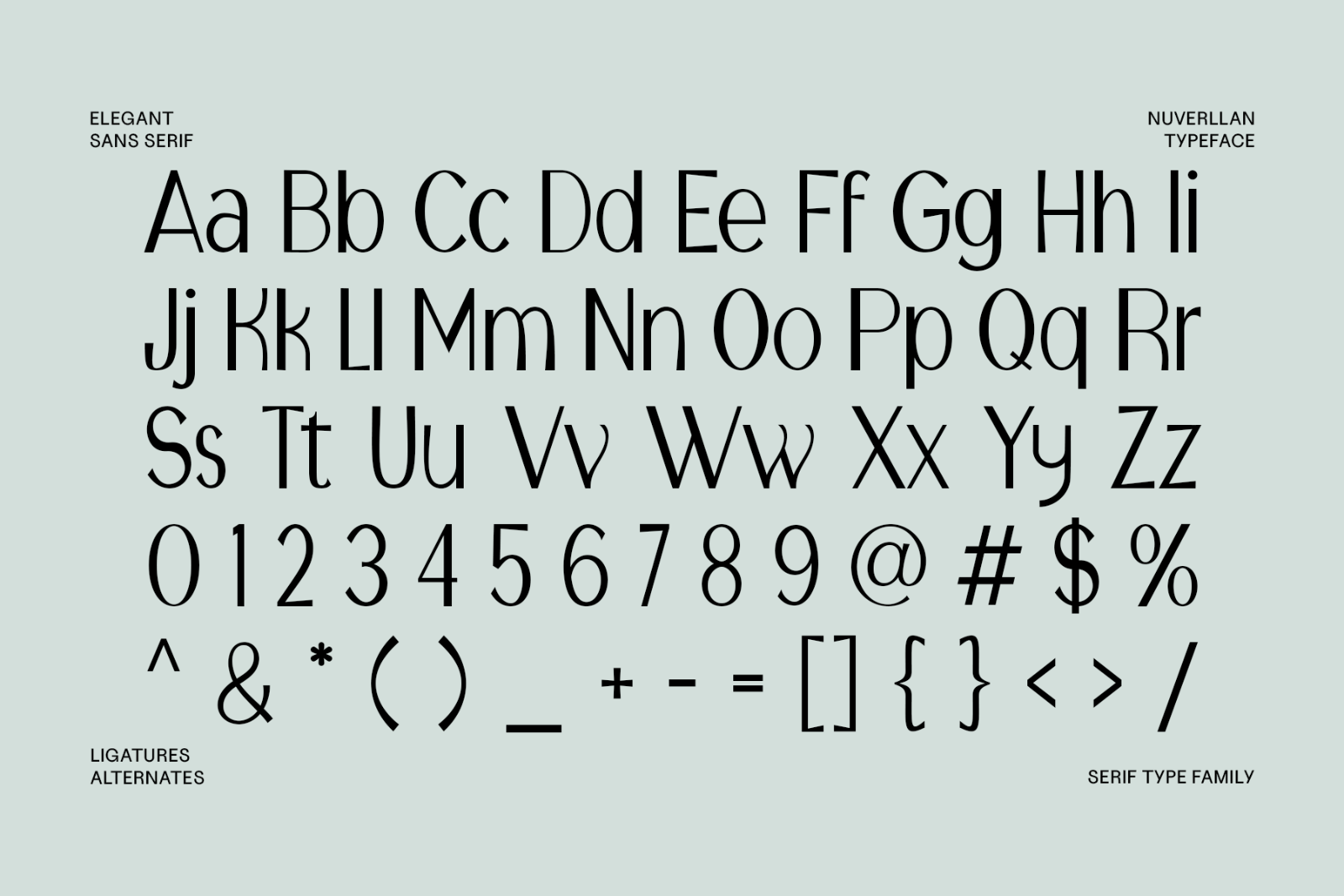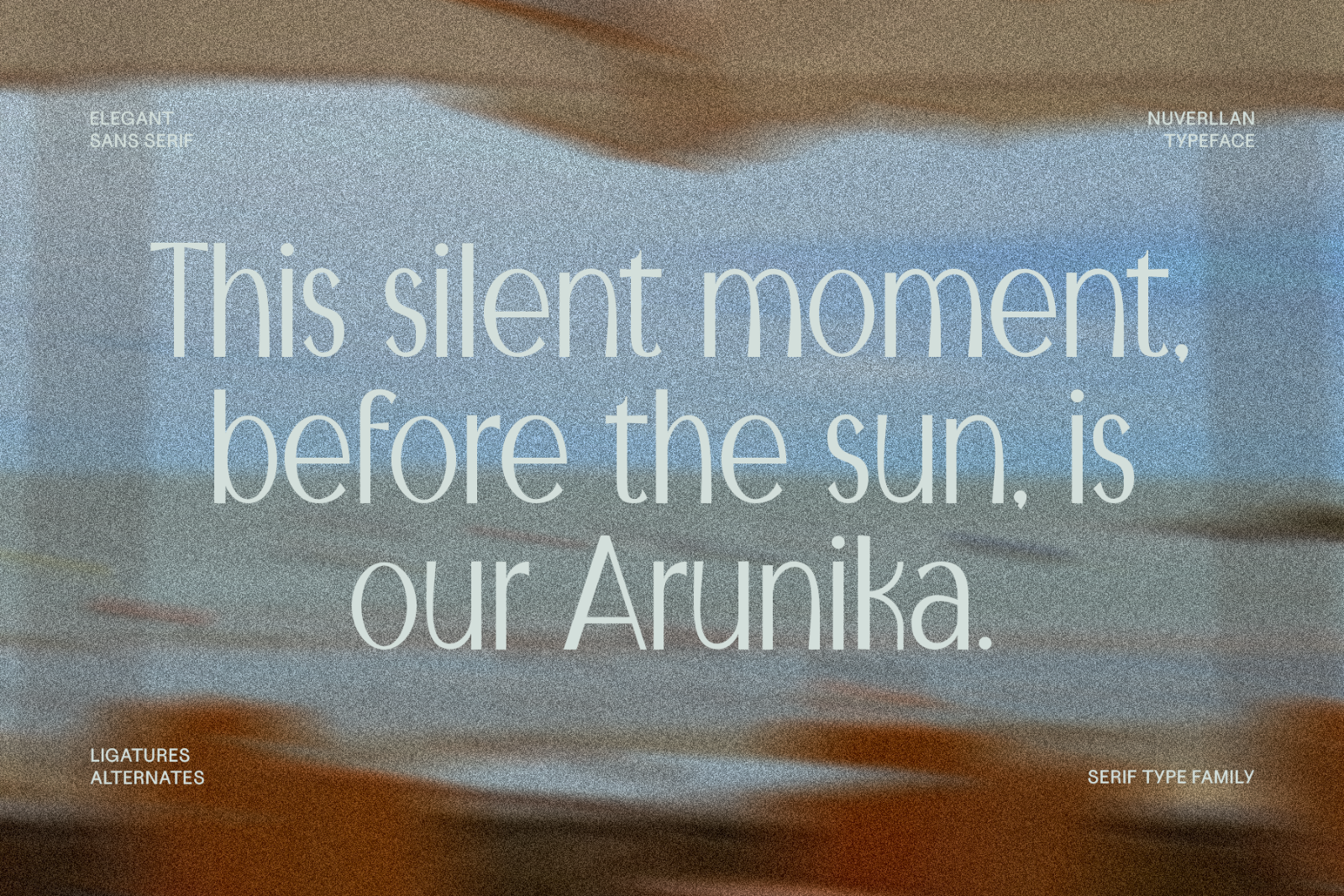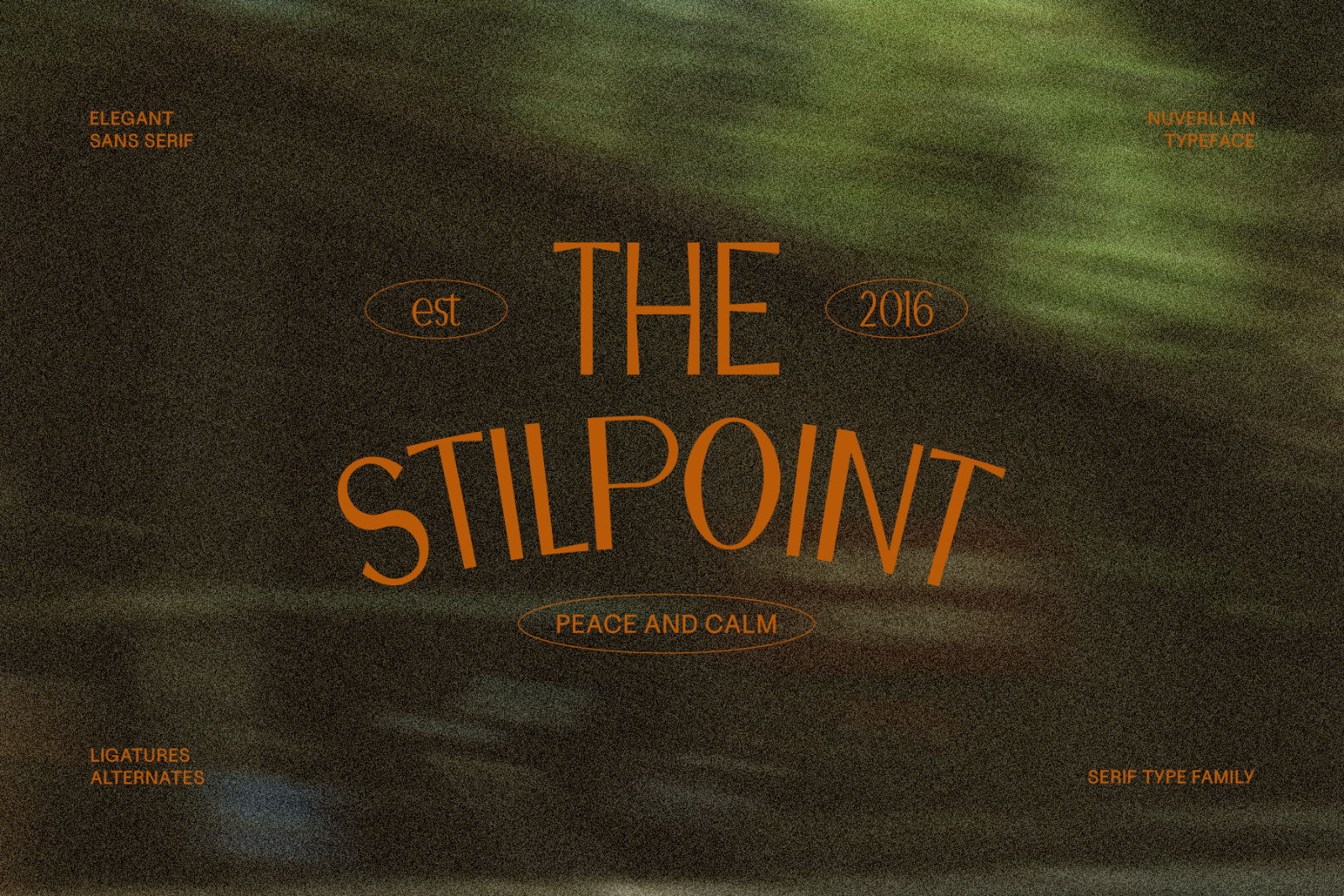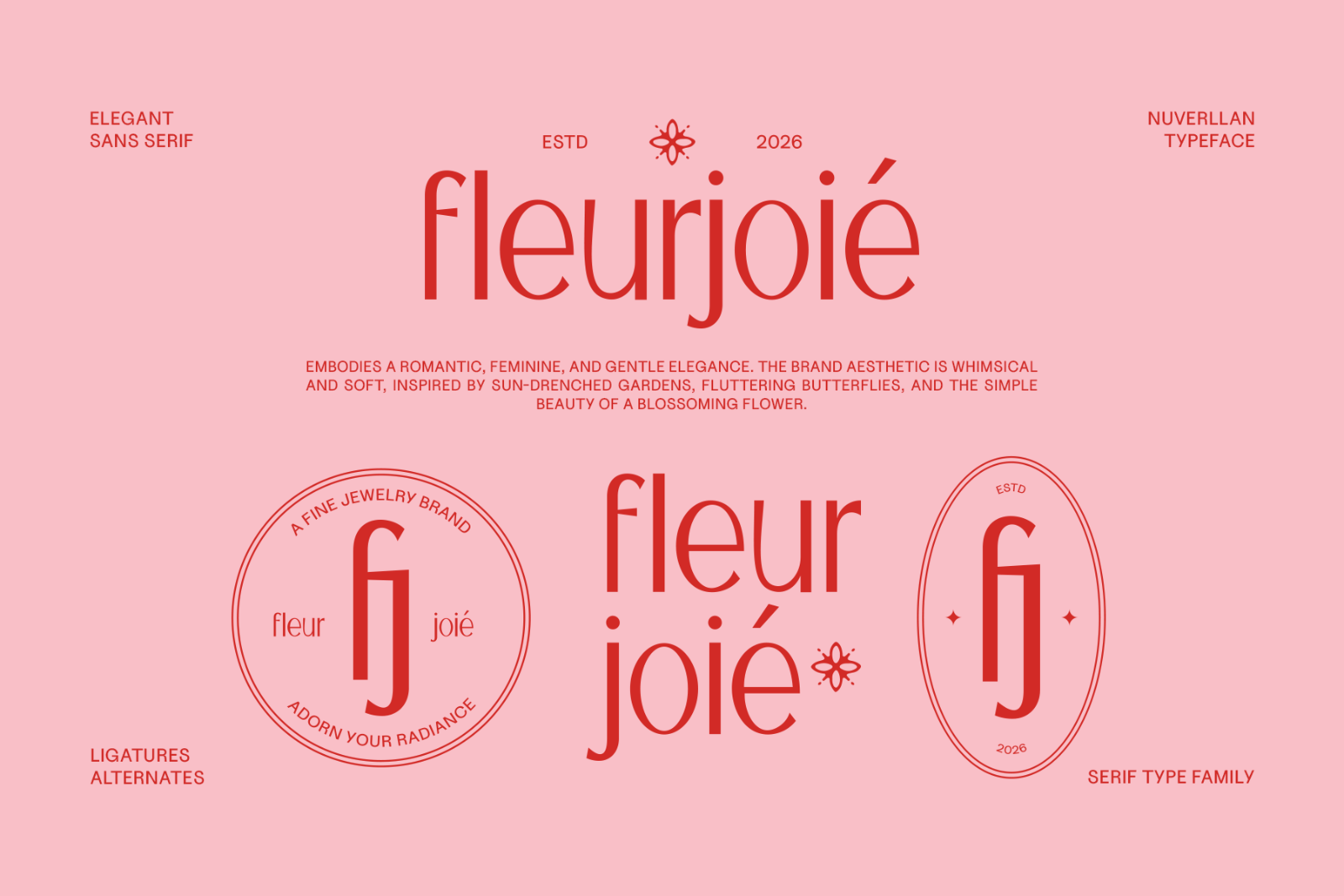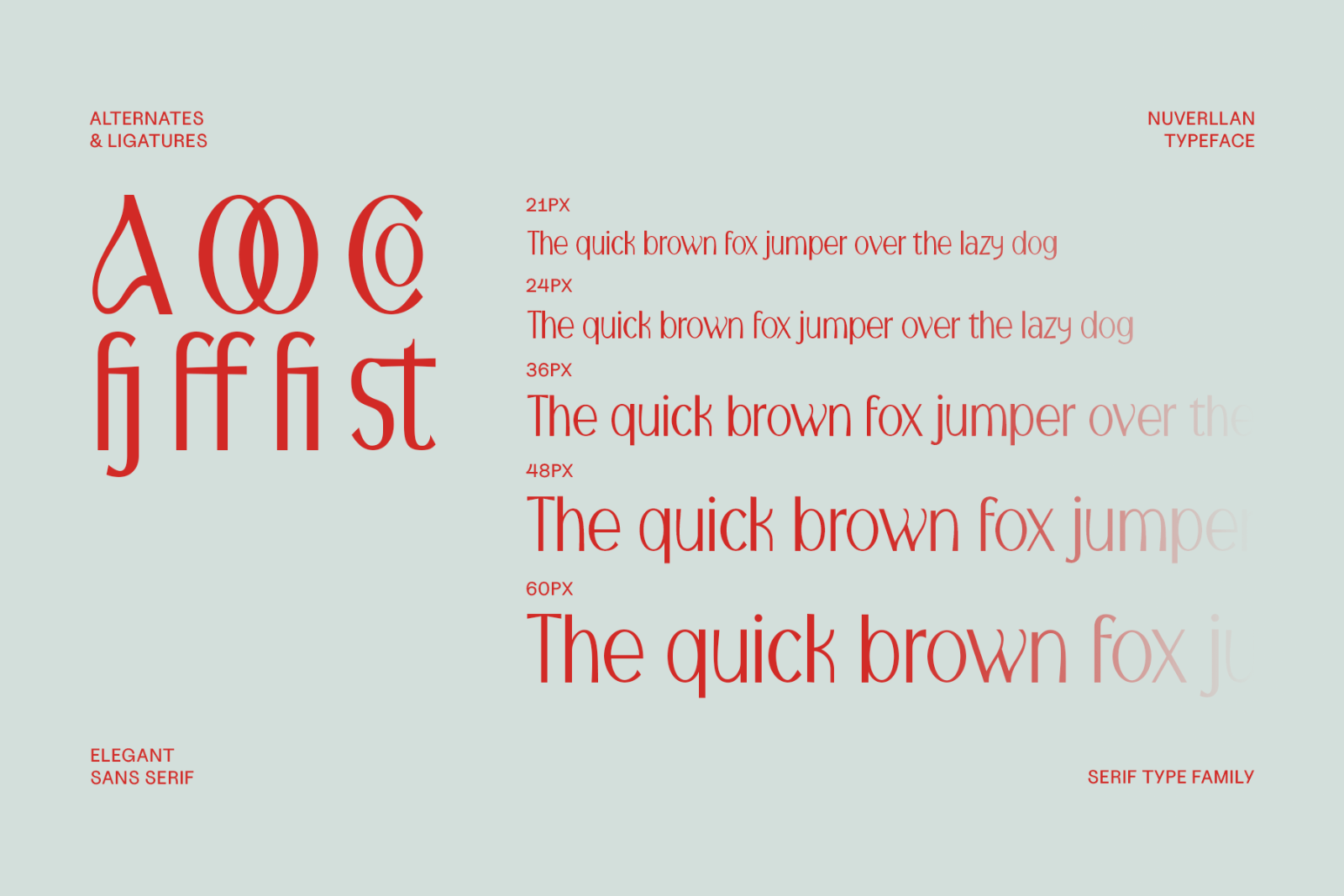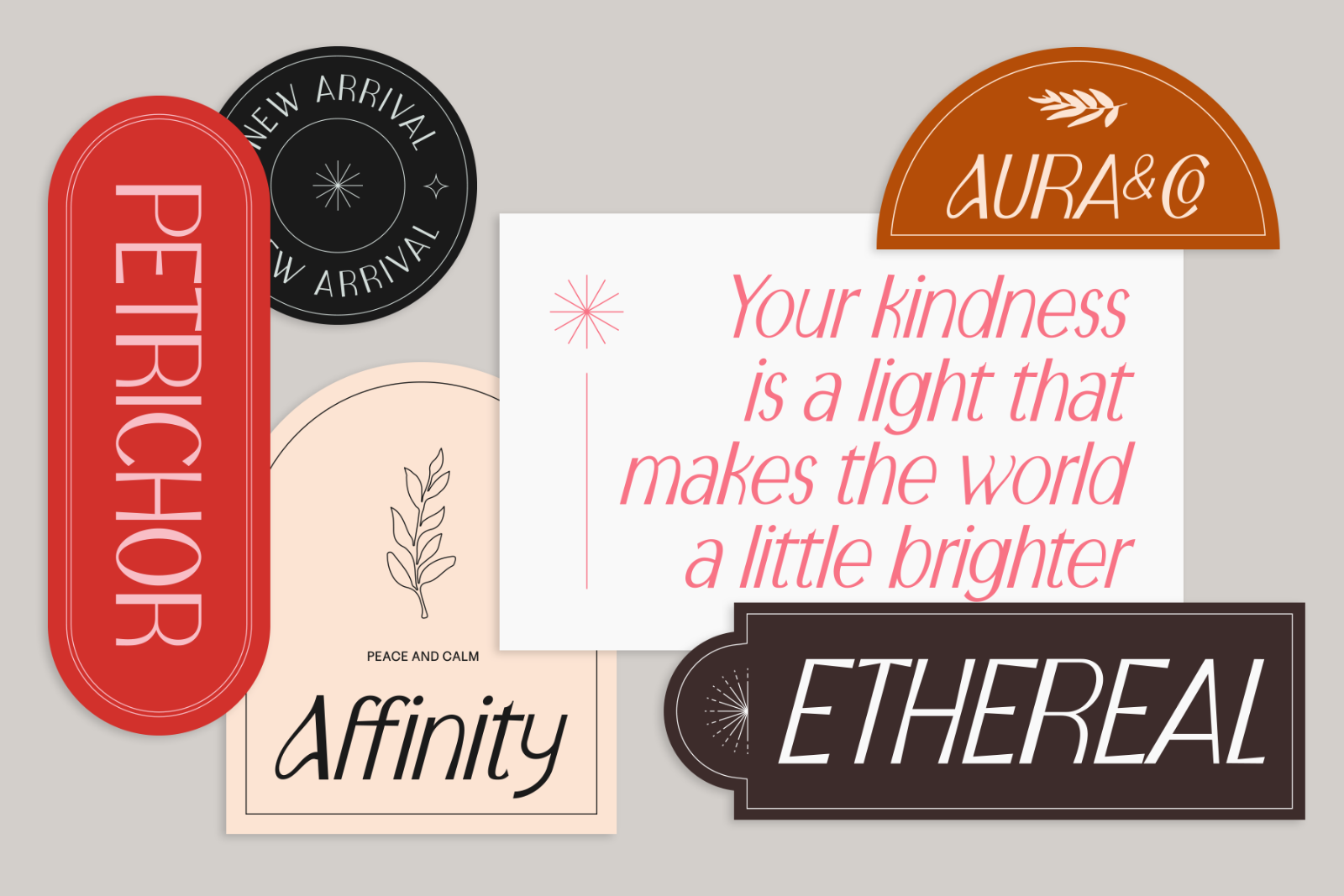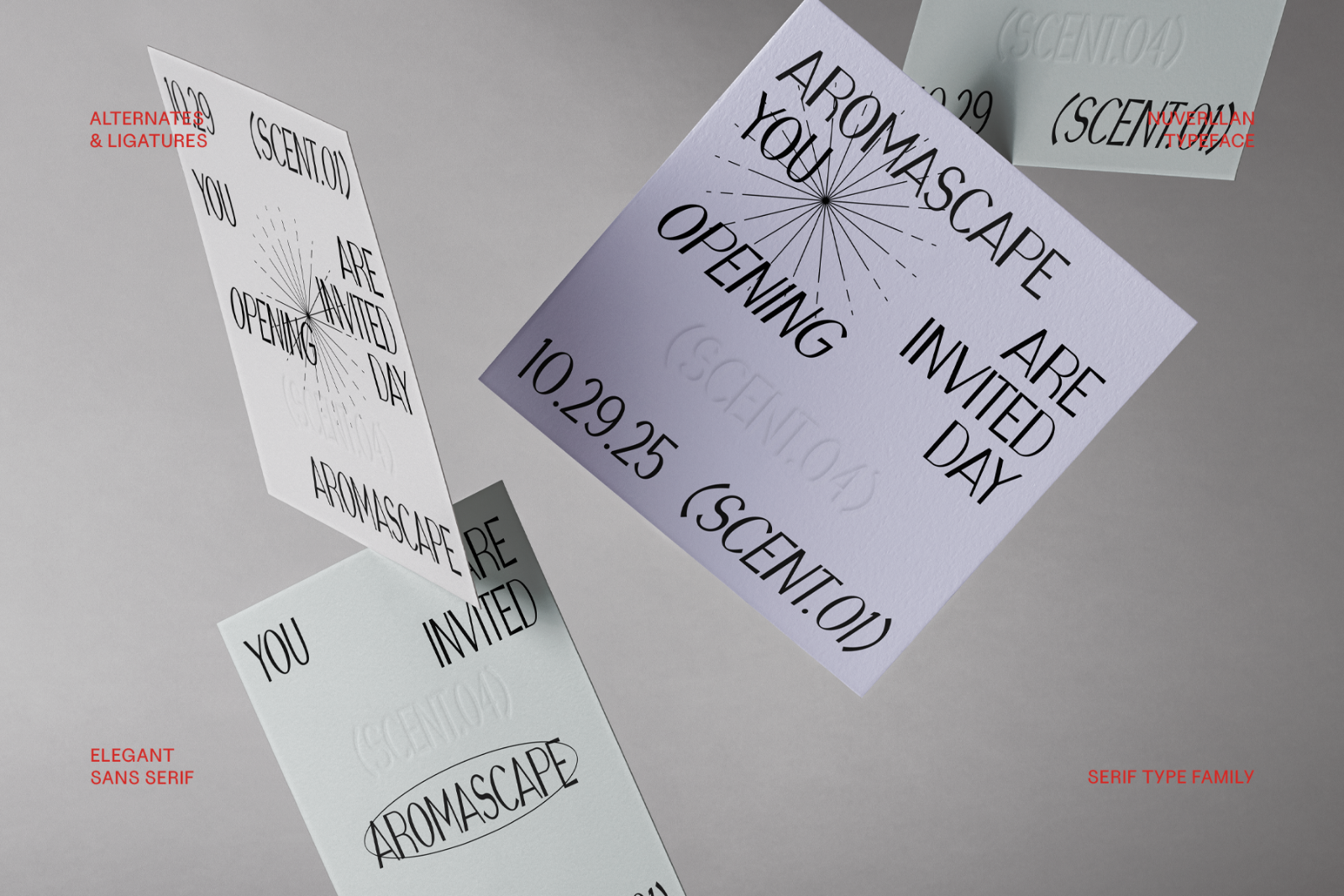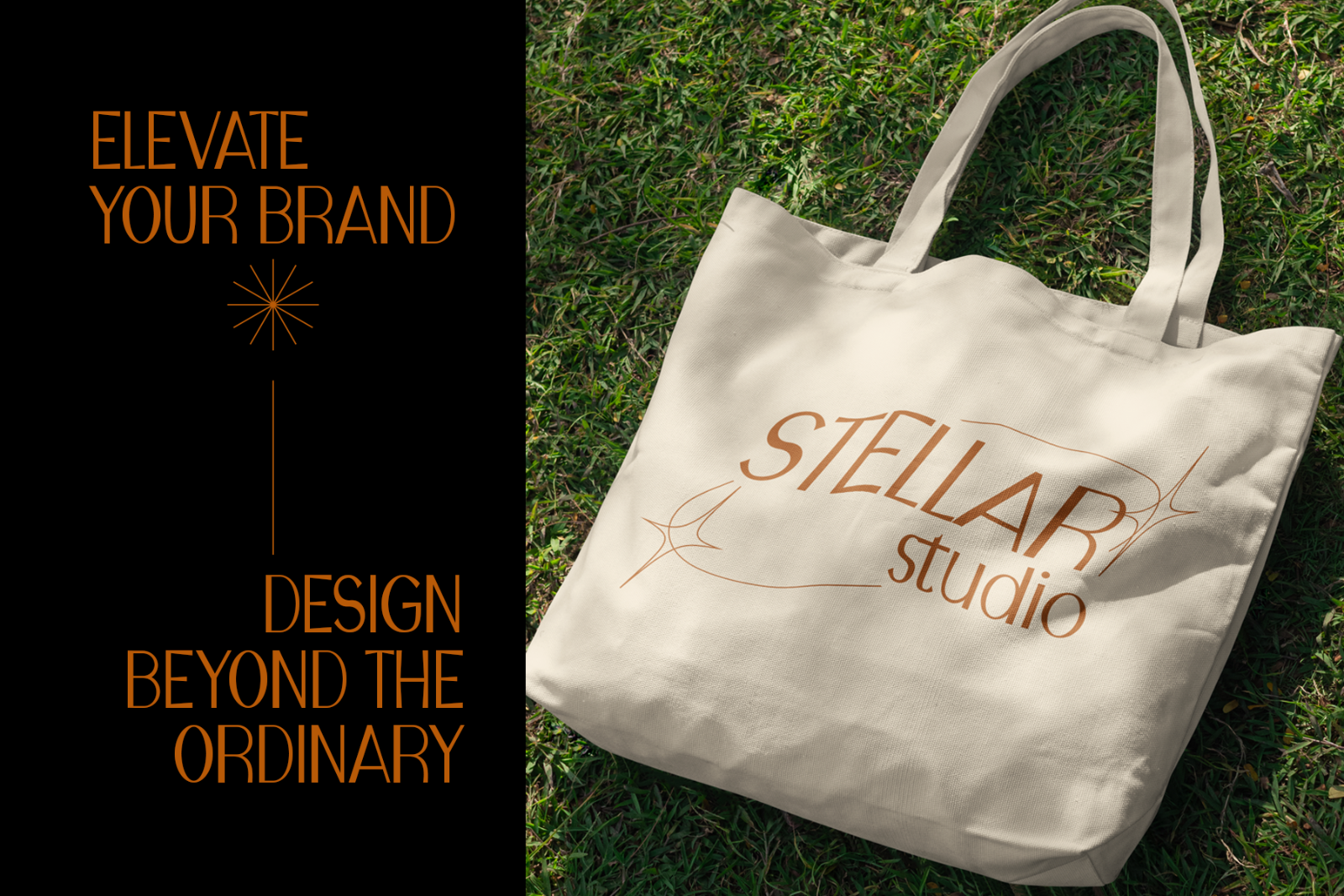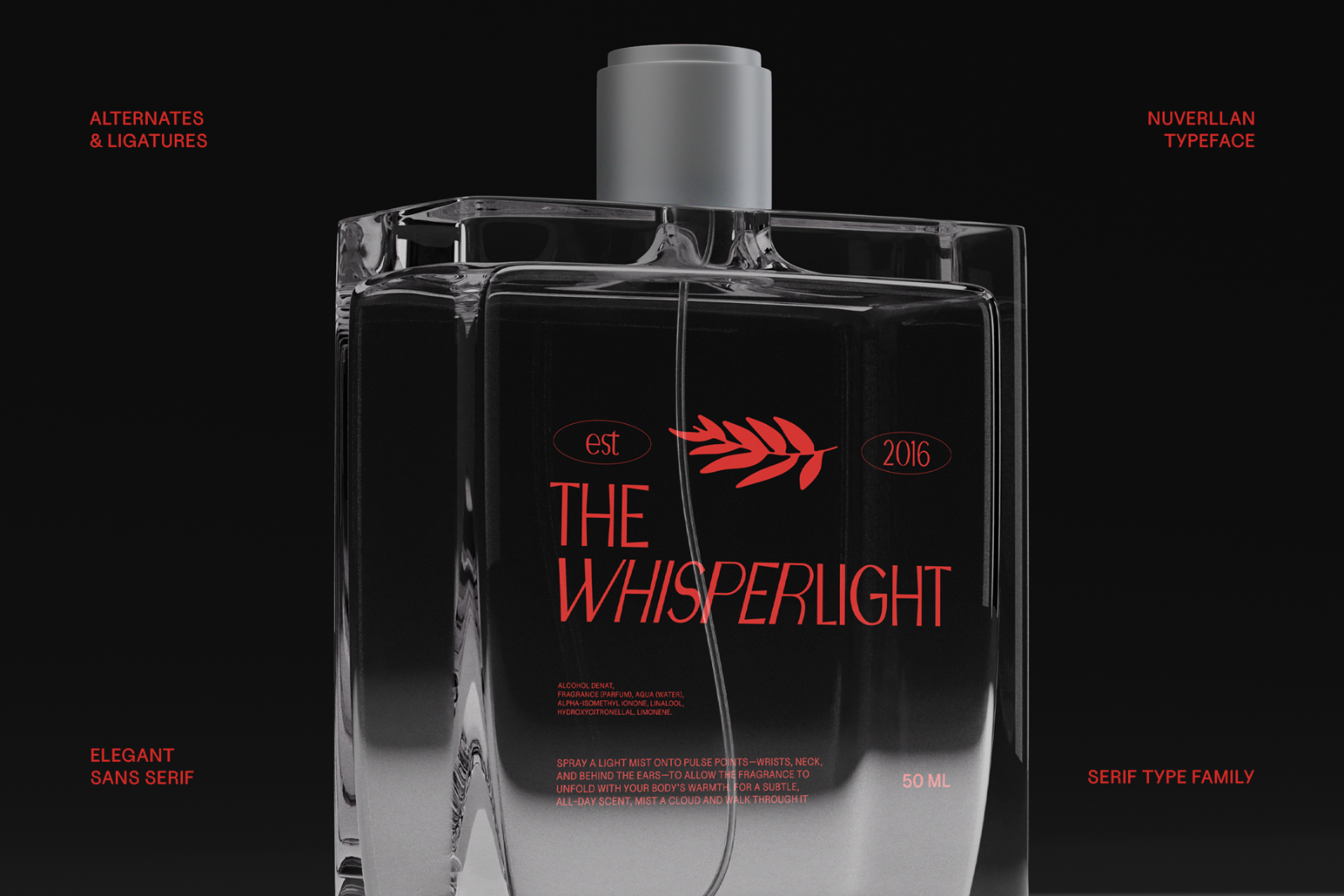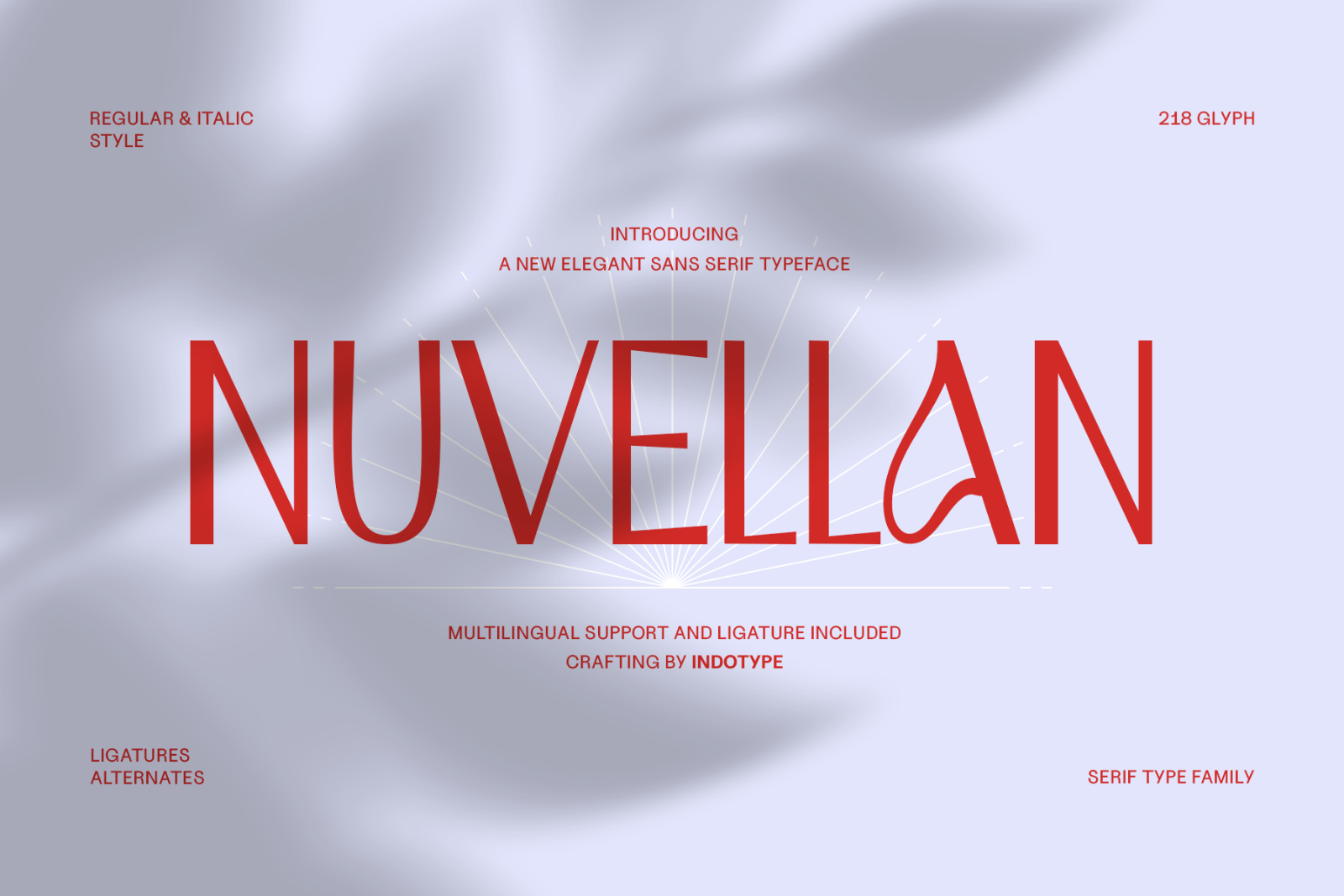
Nuvellan is an elegant sans serif typeface designed with modern sophistication and refined detail. Its sleek, narrow letterforms balance minimalism with expressive character, making it the perfect choice for designers who want clarity with a touch of personality. This font comes with regular and italic styles, offering versatility for both strong, confident headlines and graceful, stylish text compositions. The inclusion of ligatures and alternates adds a unique flair, allowing endless typographic creativity. With 218 glyphs and multilingual support, Nuvellan ensures global usability across diverse languages and projects. Ideal for branding, fashion editorials, high-end packaging, invitations, posters, and modern digital graphics, Nuvellan combines timeless elegance with contemporary functionality. Its smooth geometry and subtle artistic touches make it not just a typeface but a design statement.